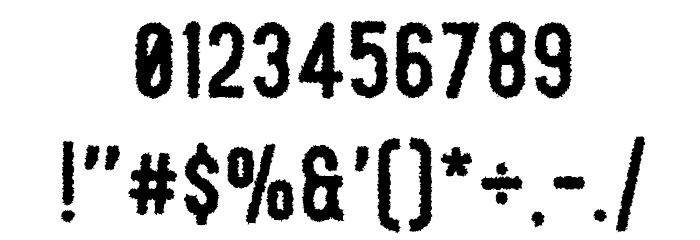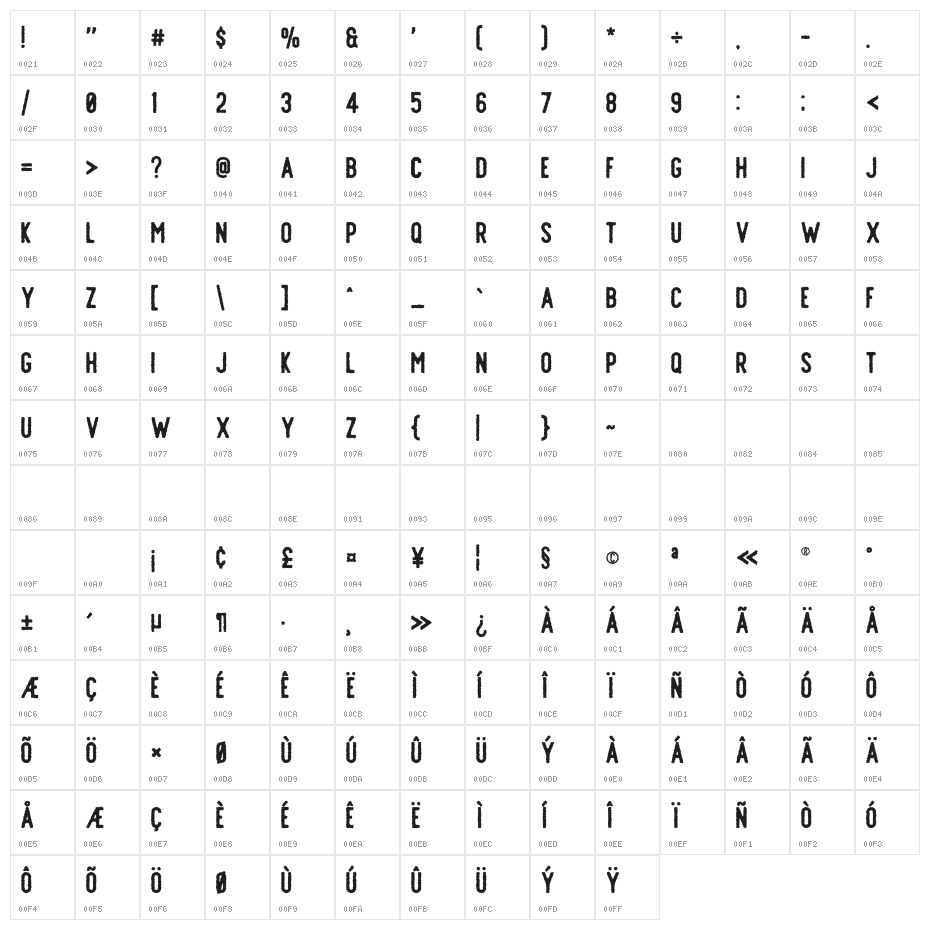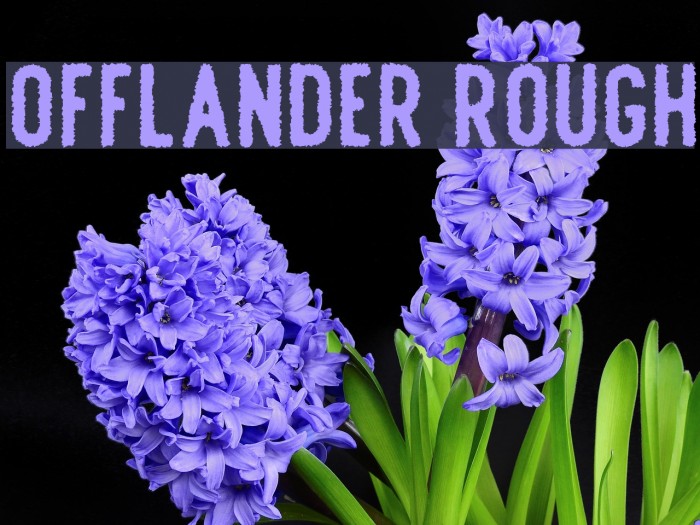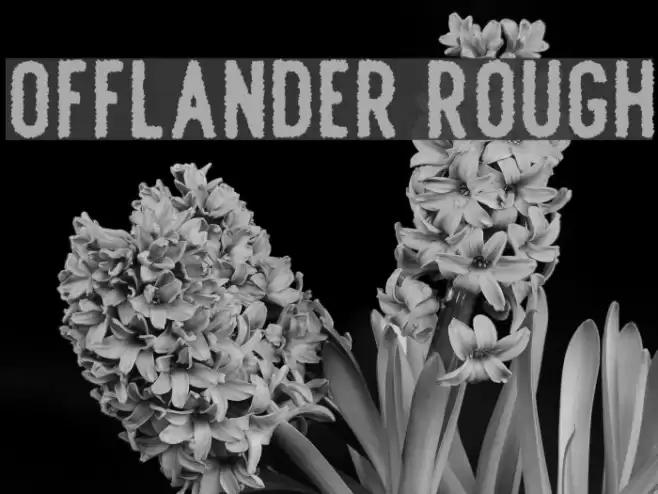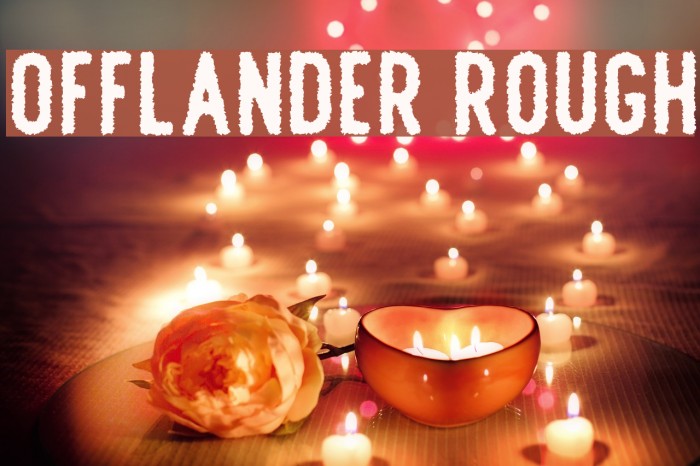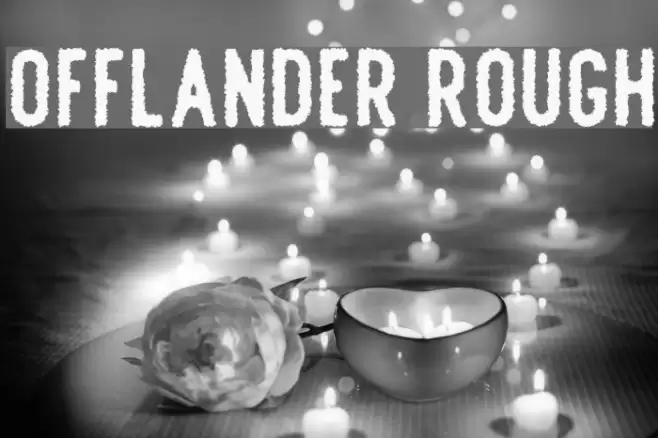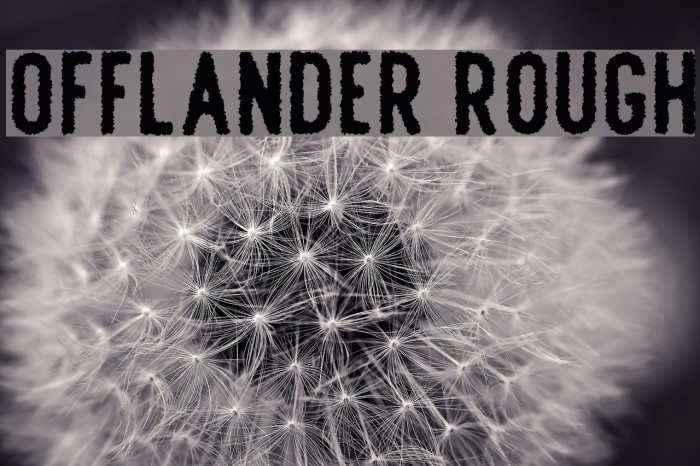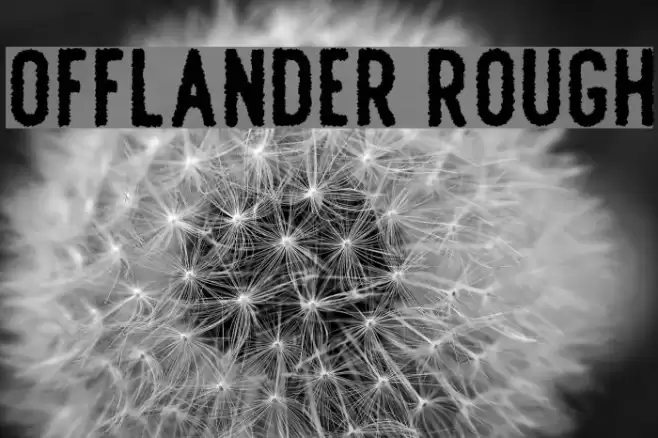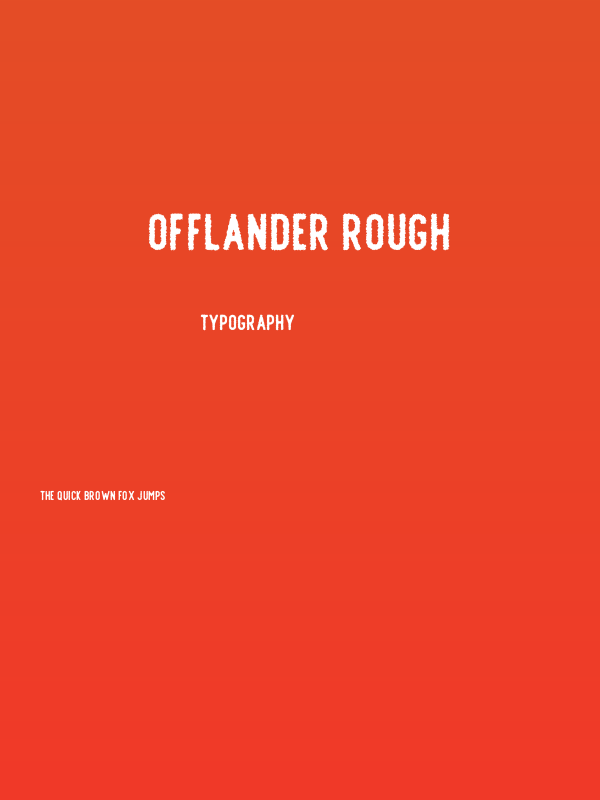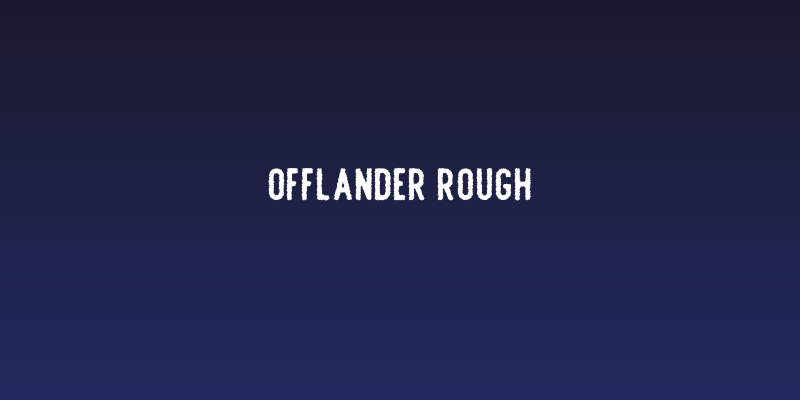
Offlander Rough Font
Offlander Rough Description
This font features a rugged, textured appearance that gives it a hand-crafted, vintage feel. The characters are bold and slightly irregular, with a distressed look that adds a sense of authenticity and character. The uppercase letters are strong and prominent, while the lowercase letters maintain the same rough texture, providing a cohesive style throughout. The numbers and special characters follow the same design, ensuring consistency across all elements. This font is ideal for projects that require a rustic or retro aesthetic, such as posters, branding, or packaging.
| Proposed Projects | Ideal for vintage-themed posters, branding, packaging, and rustic designs. |